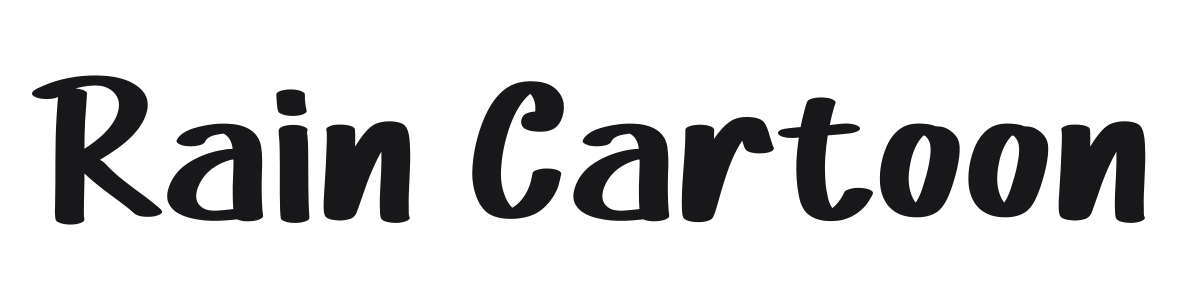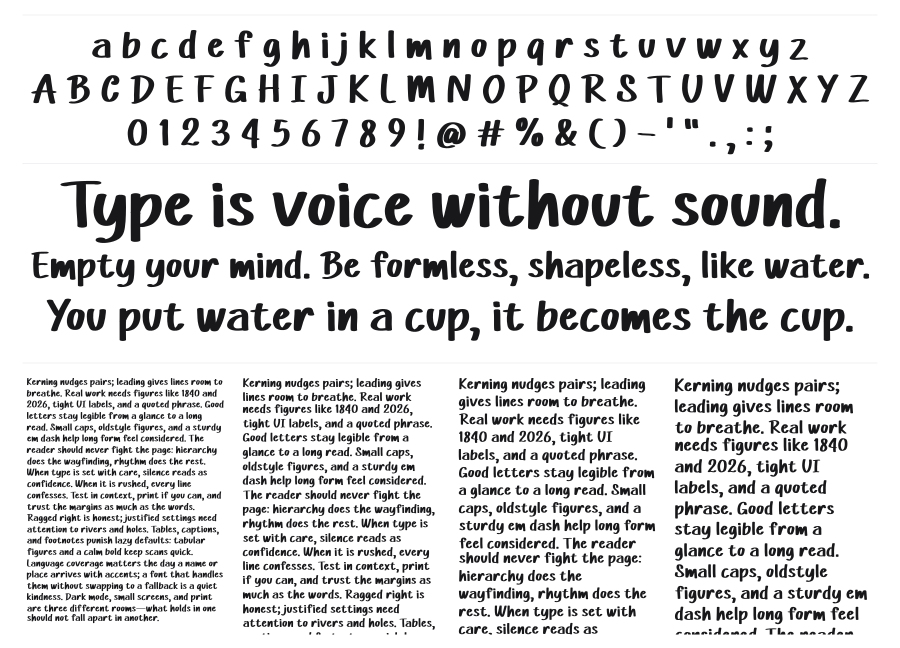
Rain Cartoon
Rain Cartoon is a bold, upright casual script from Studio Hello Good with chunky rounded strokes and a confident hand-lettered feel. It sits somewhere between a brush script and cartoon lettering, with enough flow to feel lively without losing legibility. Great for children's content, food packaging, and anywhere a warm, unpretentious headline is needed.